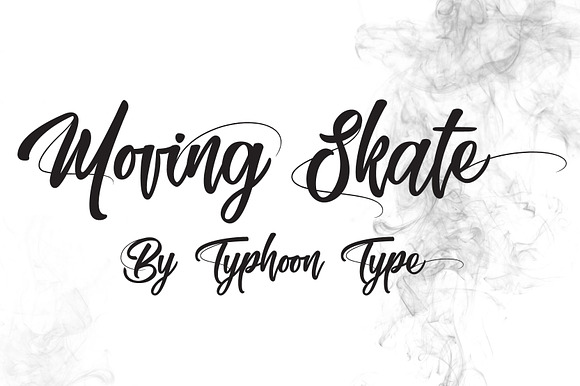
Moving Skate Font
Moving Skate This font perfect for logos, name tag, advertising, product packaging, clothing, social media & greeting cards.
Moving Skate Font by TyphoonStudio fits naturally into Branding, posters, packaging, typography.